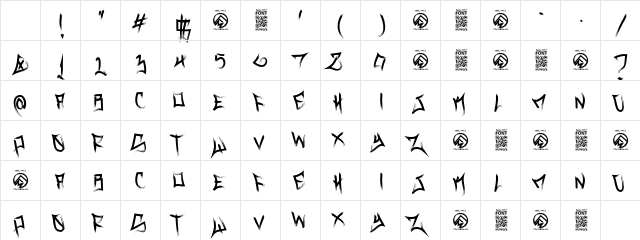
Complete Vance Jackson Regular glyph index. Displaying only characters natively supported by Vance Jackson Regular font.
Vance Jackson is a composed and adaptable typeface that performs quietly and consistently across a wide range of design contexts.